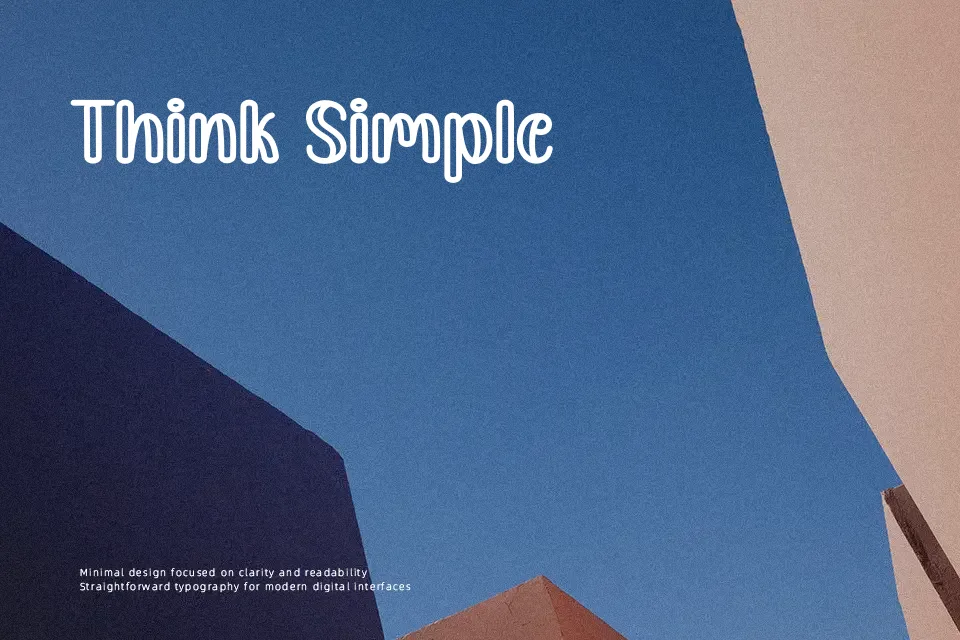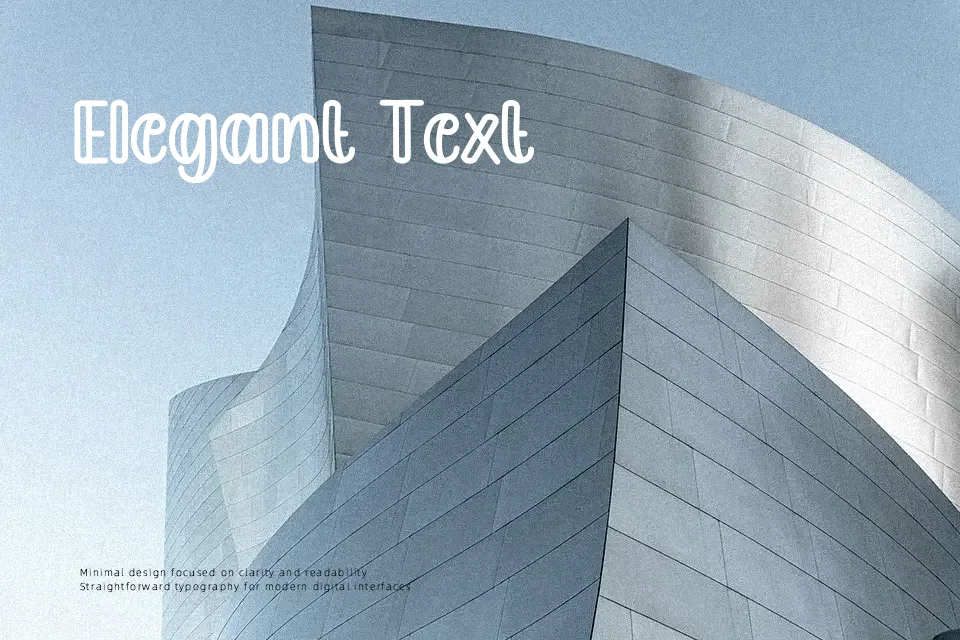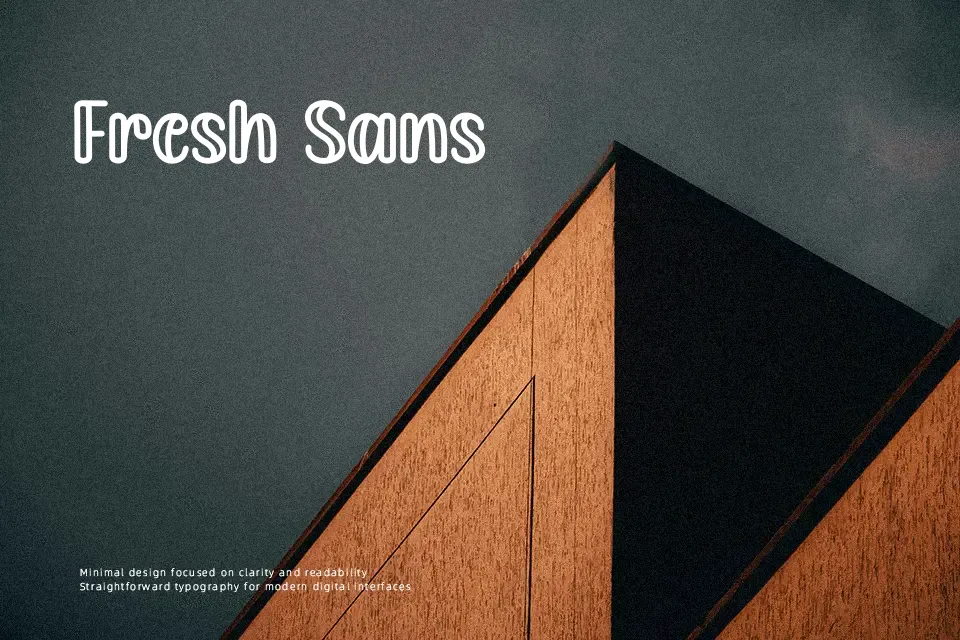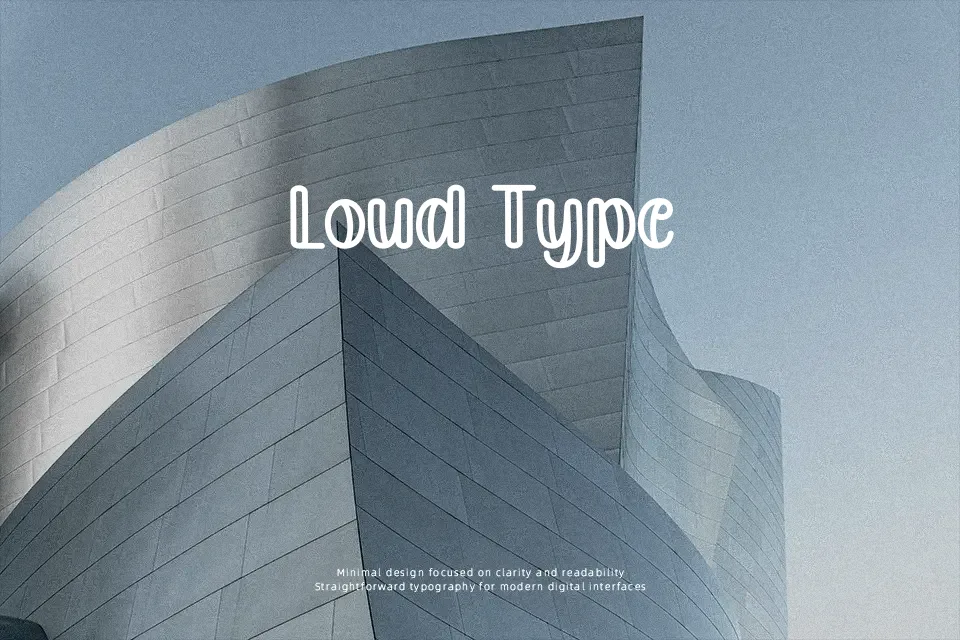
Santa Horse Font
Designed by Andi Moz
Santa Horse Font features rounded, informal stroke weights with smooth curves and bouncy baseline alignment across its character set. The letterforms display generous counters and tight, balanced spacing that ensure immediate visual impact in short headline settings. While the distinct proportions excel at mid-to-large display scales, the decorative flourishes become difficult to read within dense editorial layouts or small UI captions. The typeface provides a warm, spirited charm for festive party stationery and seasonal promotional banners, though extended continuous text quickly diminishes reading comfort.